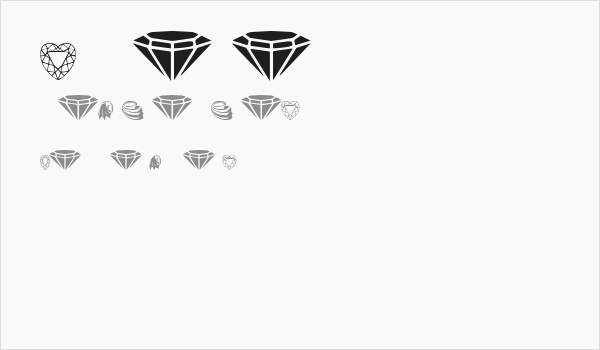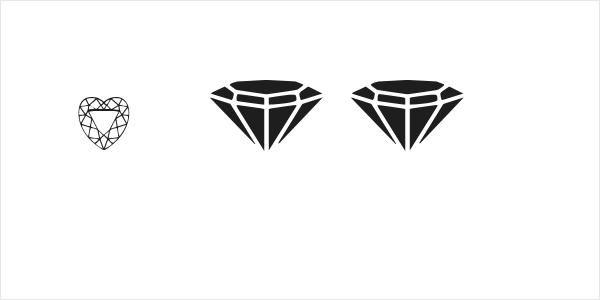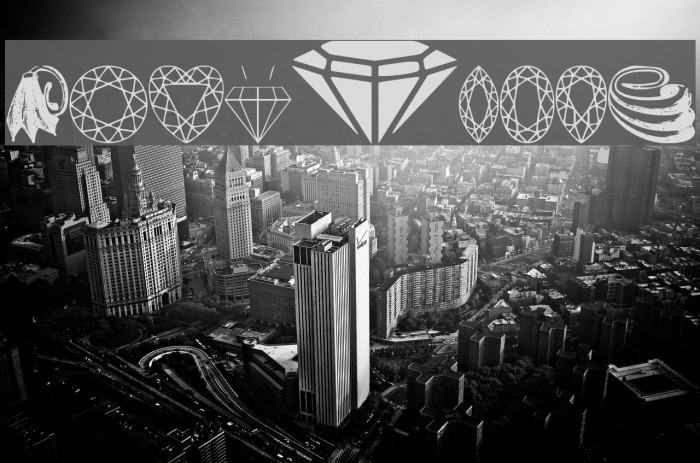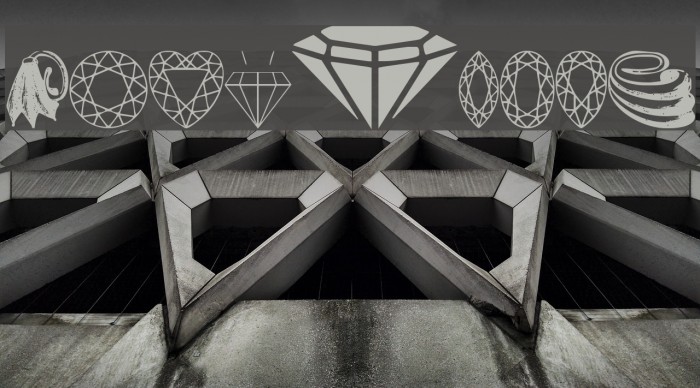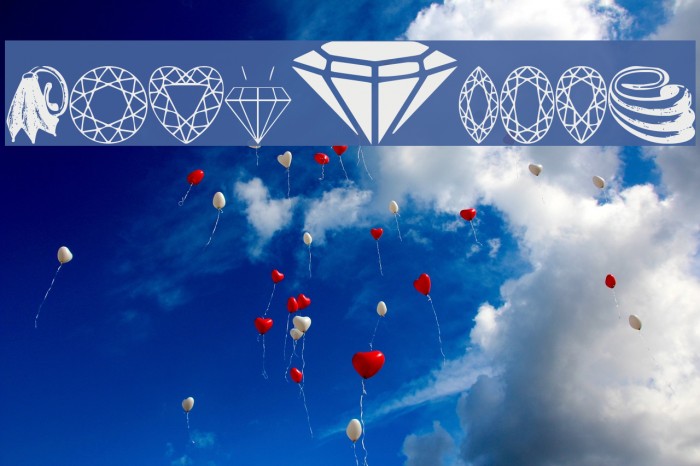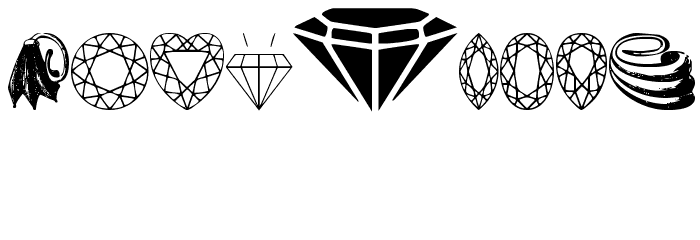
ck_jewels Font
ck_jewels Description
A decorative set of icons representing various gemstone cuts, jewelry shapes, and a mammoth, rendered in a bold, outlined, and filled graphic style. The icons are highly stylized and illustrative, with a mix of line art and solid fills.
| Overall Style | Decorative, Modern, Illustrative |
| Use Case | Logos, Icons, Branding, Decorative elements |
| Proposed Projects | Jewelry branding, packaging, website icons, promotional materials, decorative prints. |